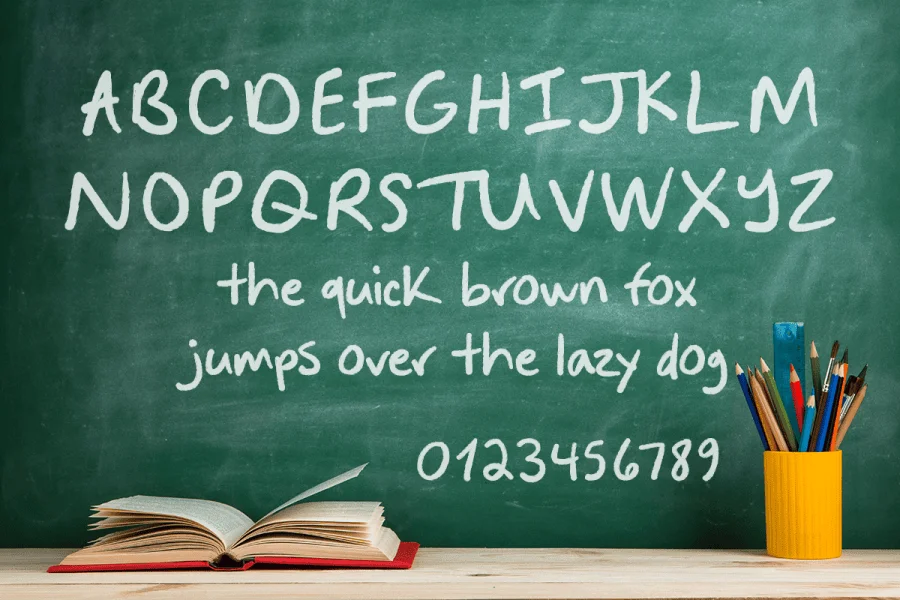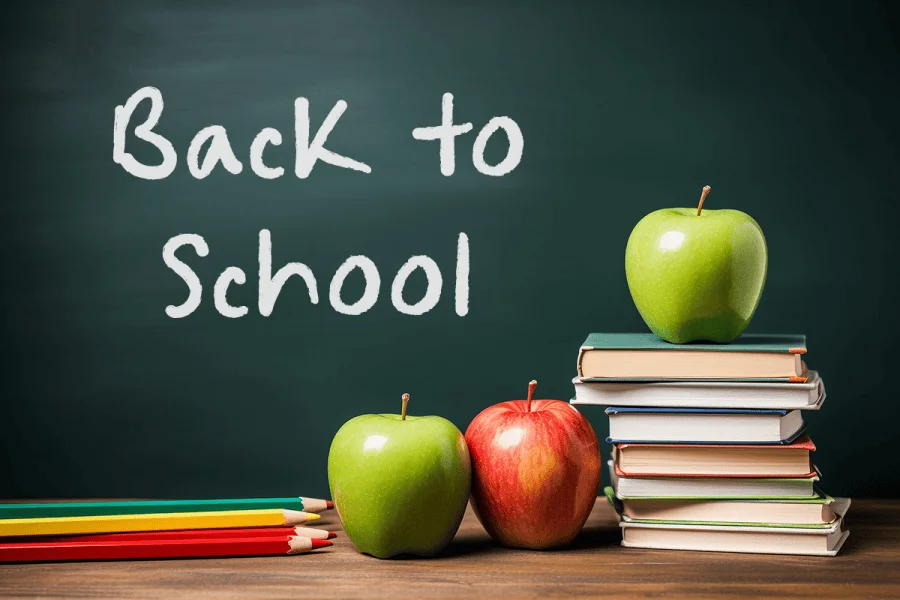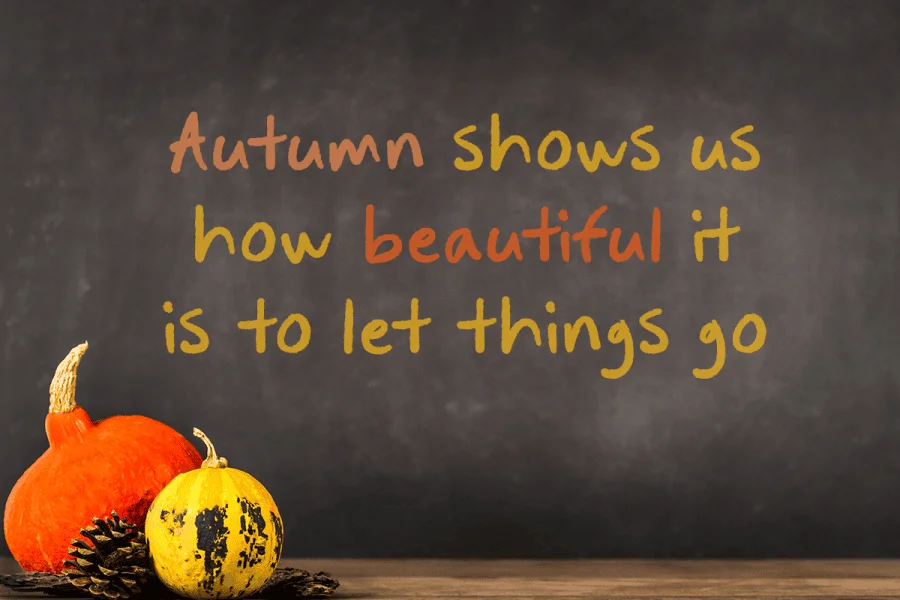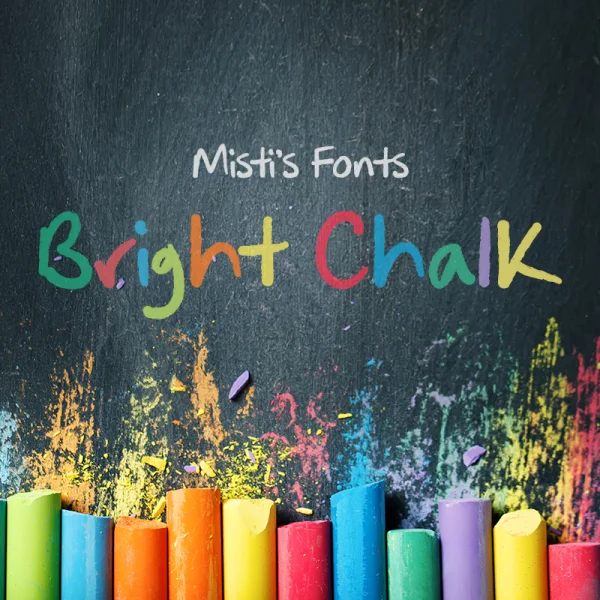
Bright Chalk is a distinctive and playful font that captures the essence of chalk lettering. This rough, organic typeface features unique letterforms that evoke a sense of creativity and artistry. The irregular lines and uneven edges give the font a hand-drawn feel that is perfect for adding personality to your designs. Whether you’re creating a poster, logo, or social media graphic, Bright Chalk is sure to make a bold statement. With its eye-catching aesthetic and versatile design, this font is a must-have for any designer looking to add a touch of whimsy to their work.